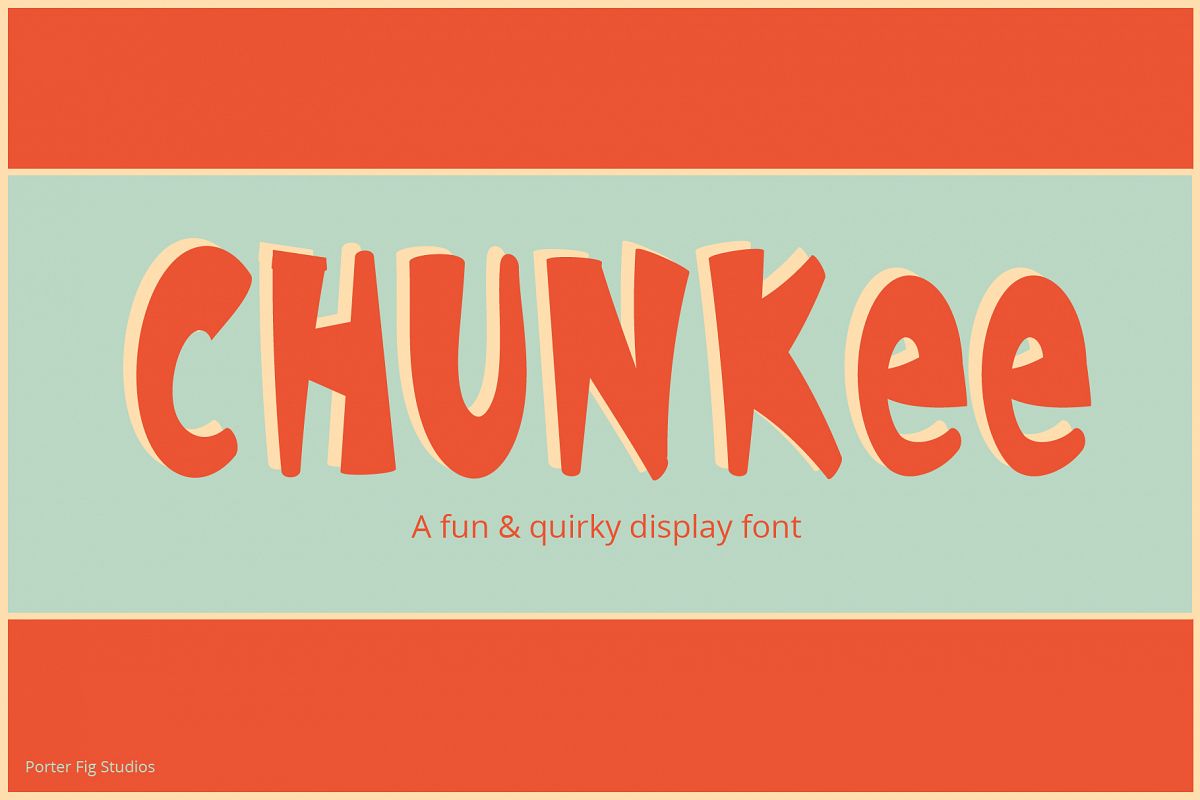
Chunkee Bold Handwritten Display Font
Introducing Chunkee... a bold quirky original sans serif display font, meticulously crafted to elevate your design projects to new heights.
This font would be good for book covers,cartoons, comic books, movie posters, flyers, social media, blogs and more.